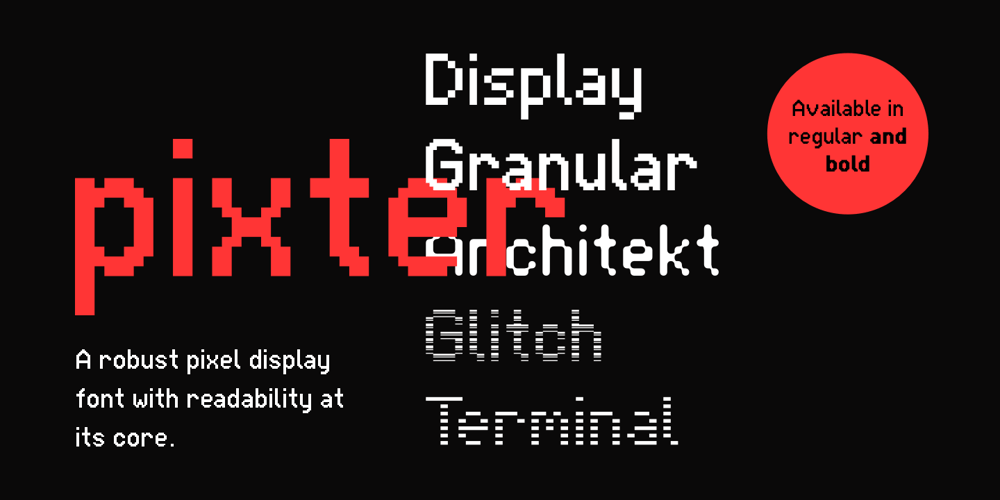
Pixter Font Family was designed by Matt Grey and published by Matt Grey Design. Pixter contains 10 styles and family package options. Pixter straddles the lines between the extreme forms of grid based pixel fonts, and more conventional grotesque fonts. Its array of styles create a palette of textures to work with multiple scenarios, from large format display to oversized passages of copy.Inspiration for Pixter initially grew from old computer bitmap fonts, but branched out into Swiss and Dutch graphic design, such as the graphic work of Josef Müller-Brockmann and typography of Wim Crouwel.